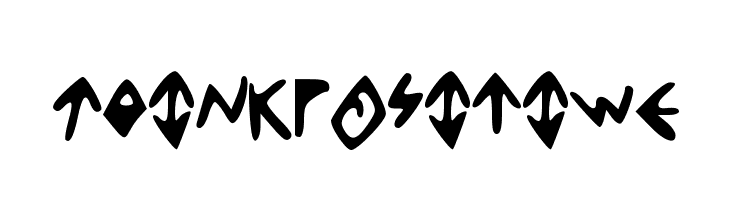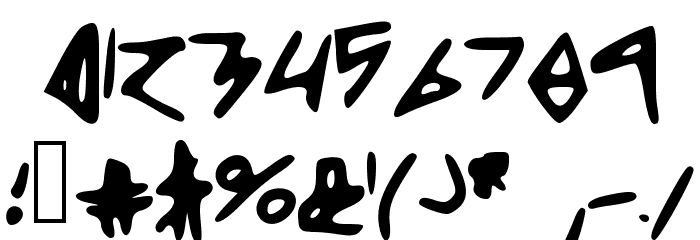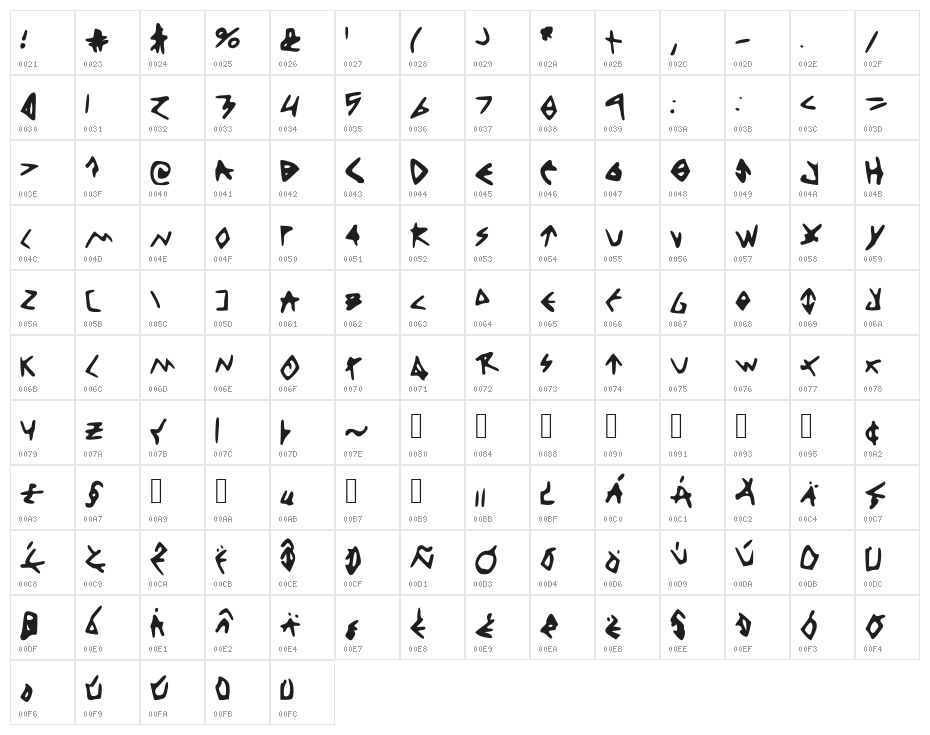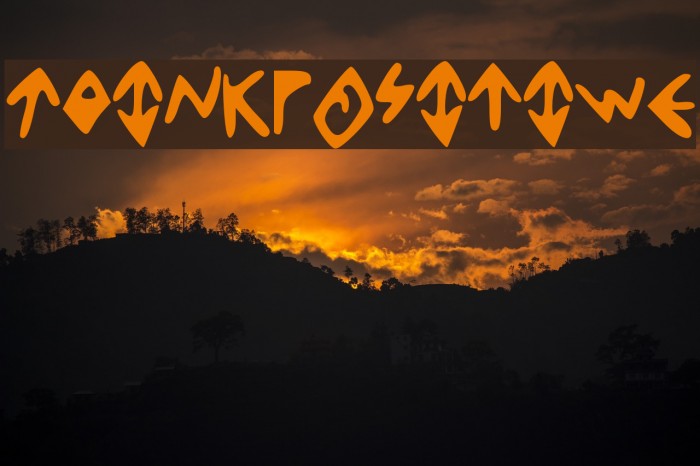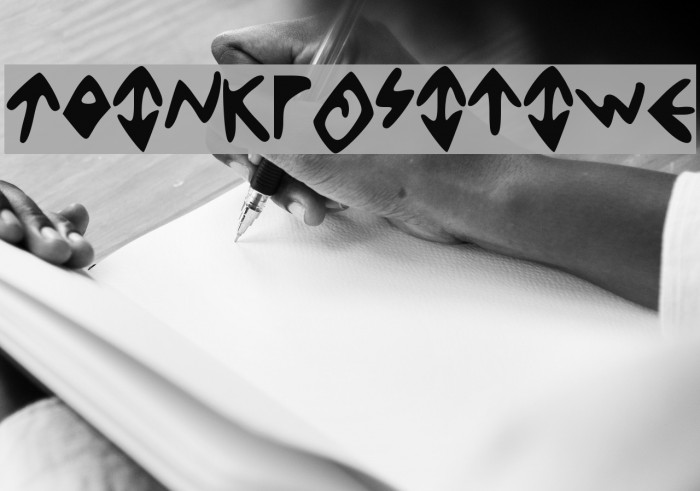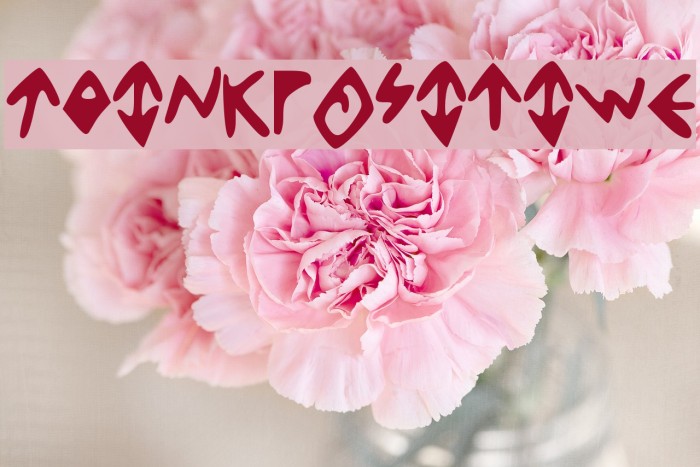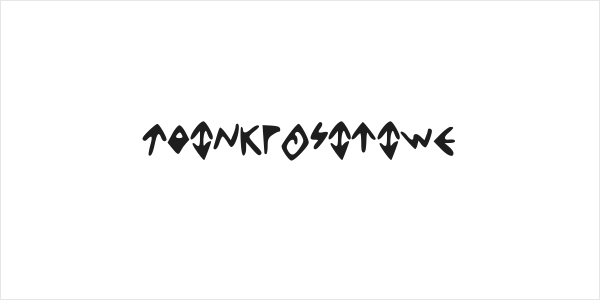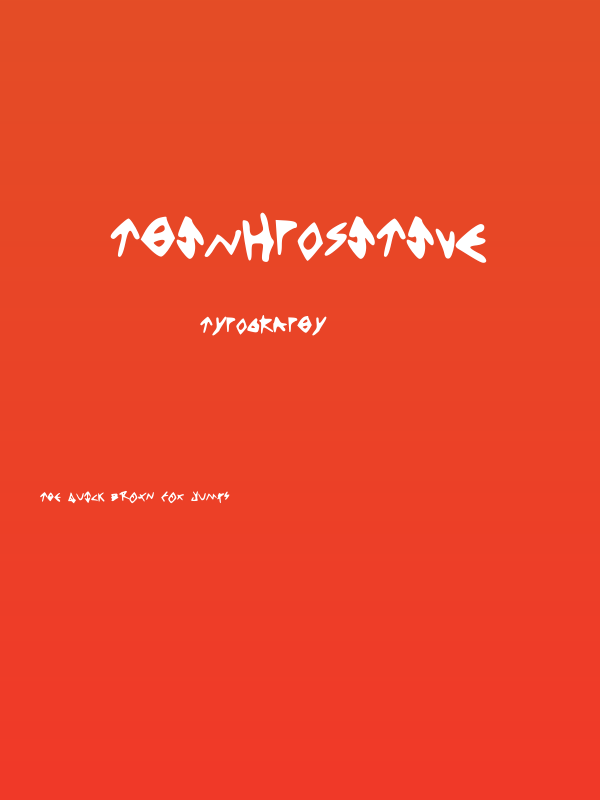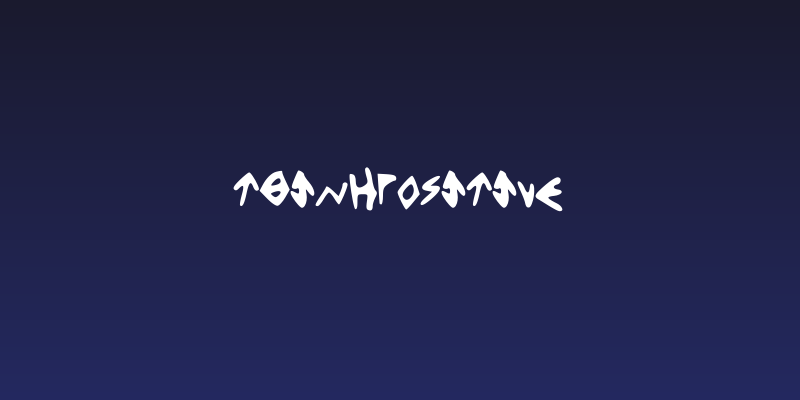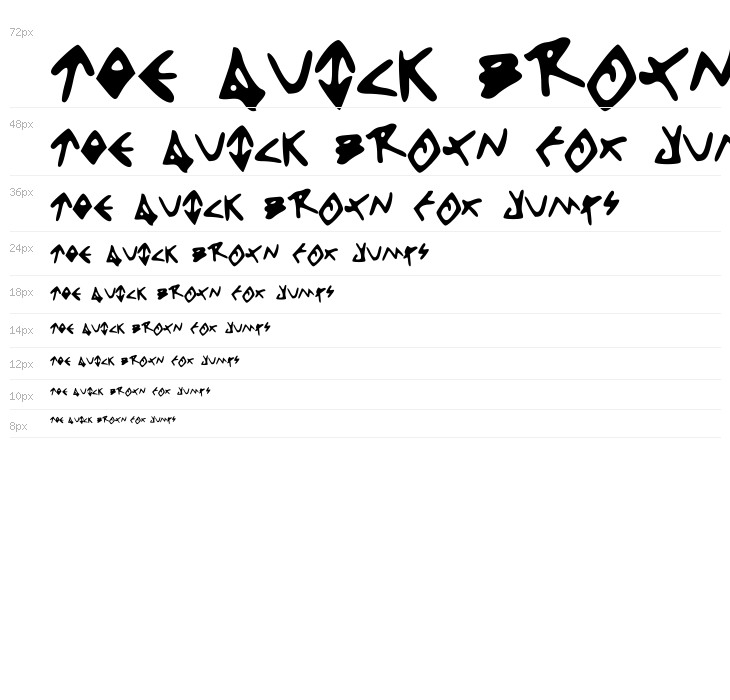
ThinkPositive Font
ThinkPositive Description
This font features a bold and dynamic style with a hand-drawn appearance, characterized by thick strokes and an irregular, playful form. The letters have a unique, almost tribal aesthetic, with sharp angles and curves that create a sense of movement and energy. The uppercase and lowercase letters maintain a consistent style, while the numbers and special characters follow the same bold and expressive design. The overall look is both artistic and unconventional, making it stand out in any design project.
| Proposed Projects | Ideal for creative projects such as posters, album covers, graffiti art, and branding that requires a bold and artistic touch. |